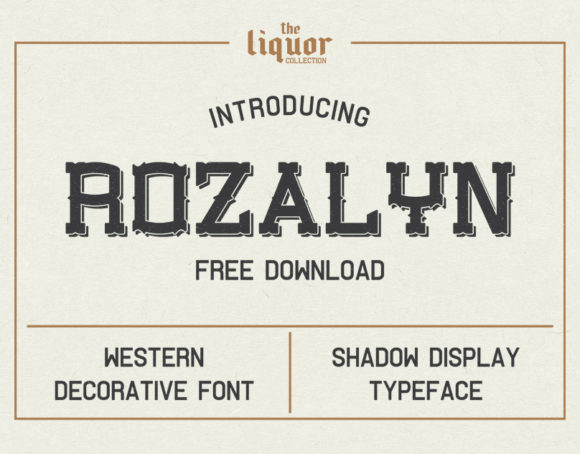
Rozalyn
About Rozalyn Font
The Rozalyn Shadow is a western decorative typeface inspired by vintage liquor labels, posters and advertising. Its unique letters will give your design a western touch.